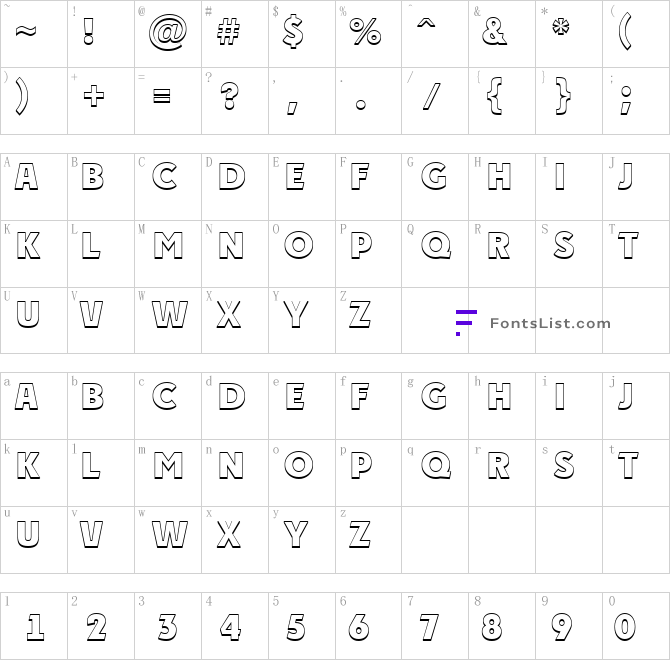
- Font Name:a_PlakatTitul3D
- Subfamily:ExtraBold
- Subfamily:a_PlakatTitul3D ExtraBold
- Full Name:a_PlakatTitul3D ExtraBold
- Weight:800
a_PlakatTitul3D-ExtraBold.ttf is a very beautiful artistic font, a_PlakatTitul3D-ExtraBold.ttf is widely used in the design and printing of various books and pictures,a_PlakatTitul3D-ExtraBold.ttf has a strong visual impact,a_PlakatTitul3D-ExtraBold.ttf is a commonly used font in newspapers, magazines and books, and is used in posters, e-commerce Poster design, store design, logo design, font design and other fields.a_PlakatTitul3D-ExtraBold.